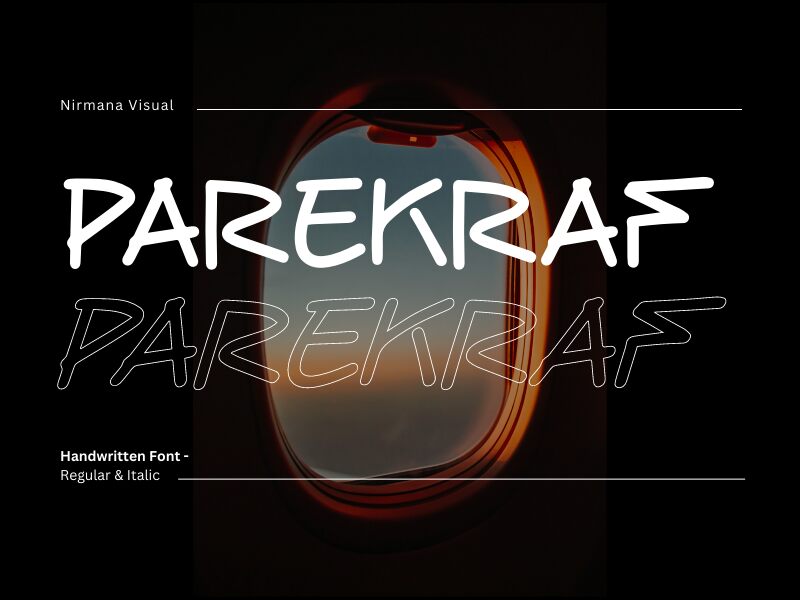
Parekraf, designed by Nirmana Visual, is a semi-light handwritten font that radiates charm and personality. Its fluid strokes and slightly varied line weights capture the essence of human touch, making it a standout choice for designers seeking to imbue their projects with warmth and authenticity. The aesthetic appeal of Parekraf lies in its approachable elegance, offering a blend of casual artistry with refined consistency that makes it versatile for an array of creative endeavors.
With its handwritten style, Parekraf is perfectly suited to design contexts that require a personal, bespoke feel-such as invitations, branding materials, or editorial layouts. The semi-light weight provides excellent readability while maintaining an airy presence on the page or screen. This font's distinctive character ensures that messages conveyed through its lettering are not only seen but felt, creating an intimate connection with the audience.
Embrace the distinctiveness of Parekraf for your next project and let this typeface add a handcrafted essence to your design narrative.